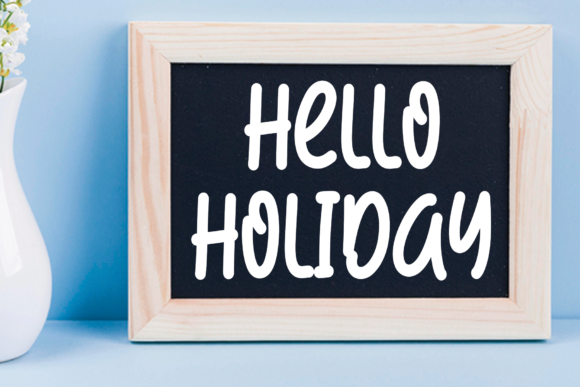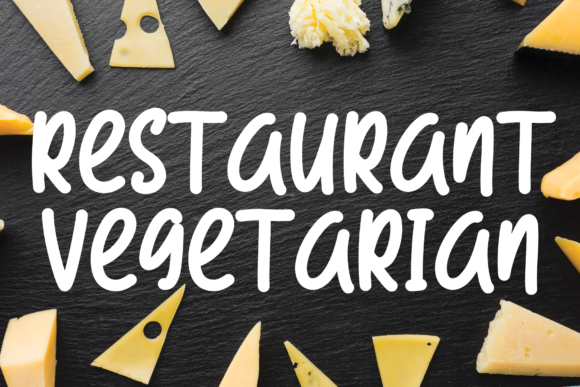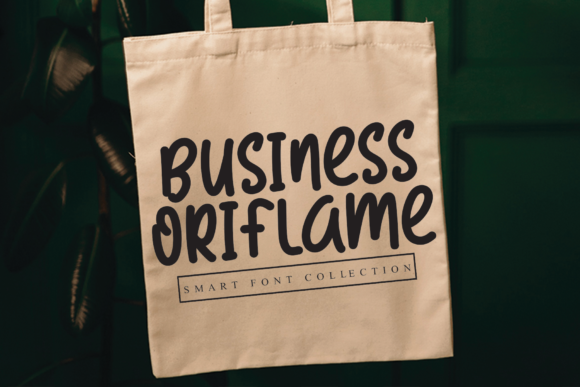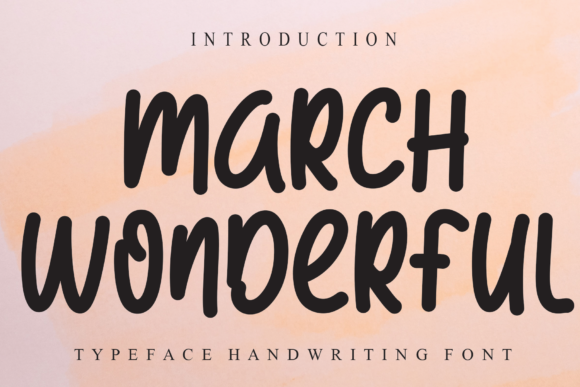
Introduction to March Wonderful Font
March Wonderful is a sweet and friendly paint brushed handwritten font.
Key Features of March Wonderful Font
Why Choose March Wonderful Font?
March Wonderful Font offers exceptional quality and versatility, making it a valuable addition to your design toolkit. Whether you’re creating for personal projects or commercial use, March Wonderful Font delivers professional results.